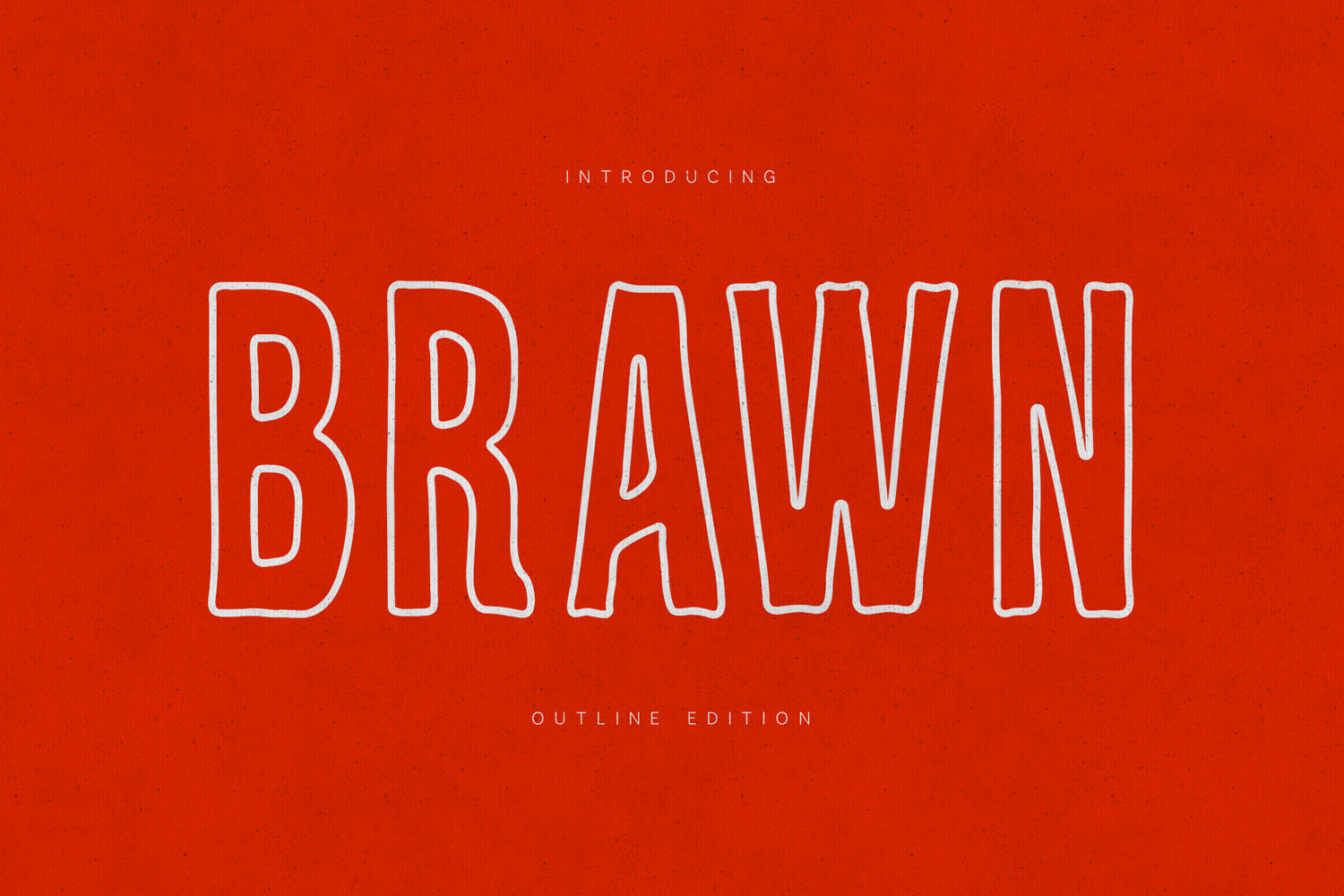
Brawn Outline Edition is a bold, expressive display font featuring hand-drawn outlines and confident letterforms. With its playful yet powerful character, this typeface is designed to stand out in headlines, posters, branding, packaging, apparel, and creative typography projects.
Its outlined construction adds depth and personality while remaining clean and highly readable. Brawn Outline Edition includes uppercase and lowercase letters, numerals, punctuation, and multilingual support, making it suitable for both print and digital use. Delivered in OTF format, ready for professional creative workflows.